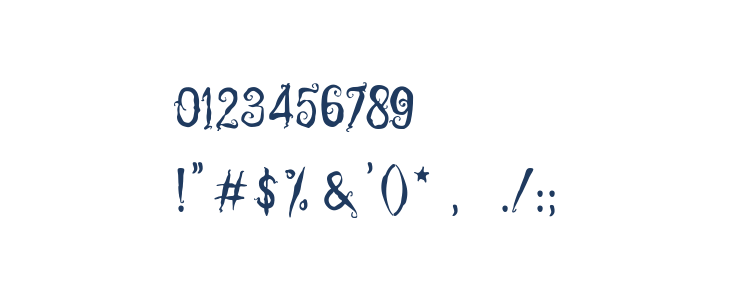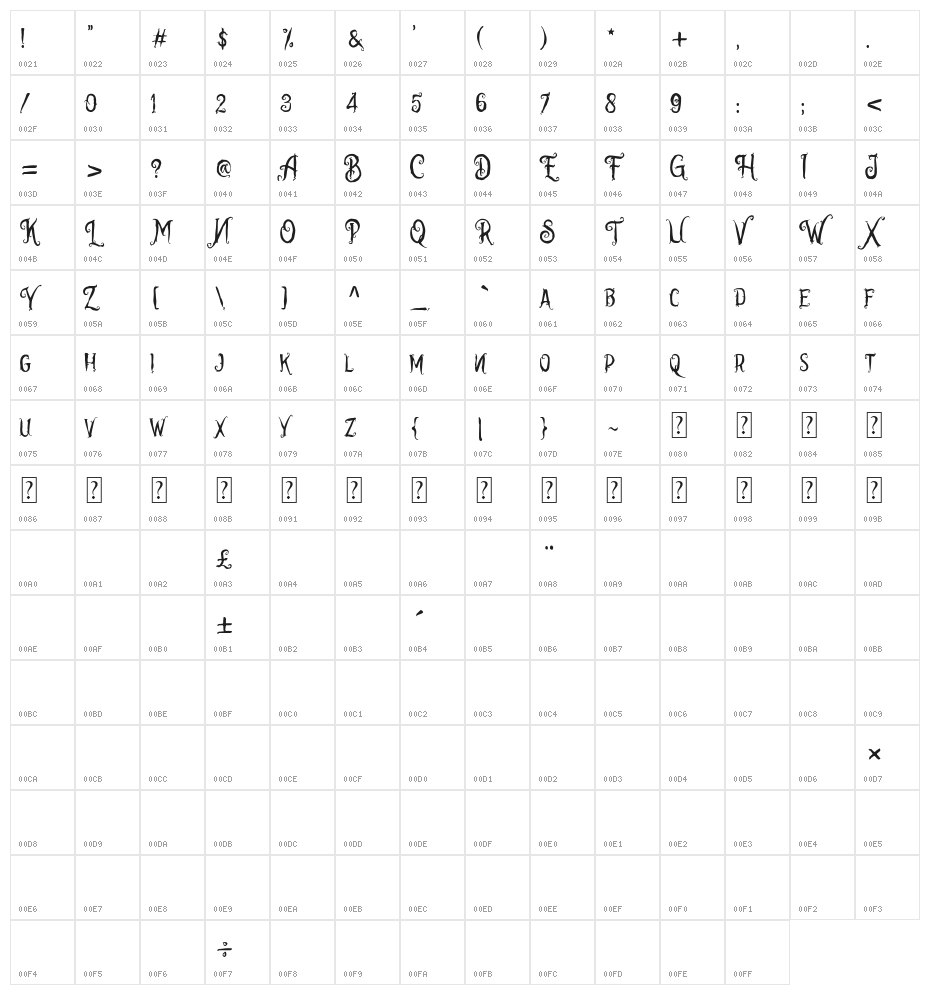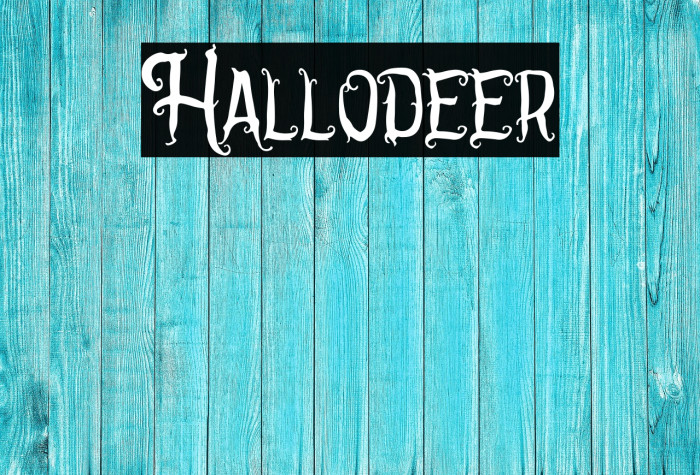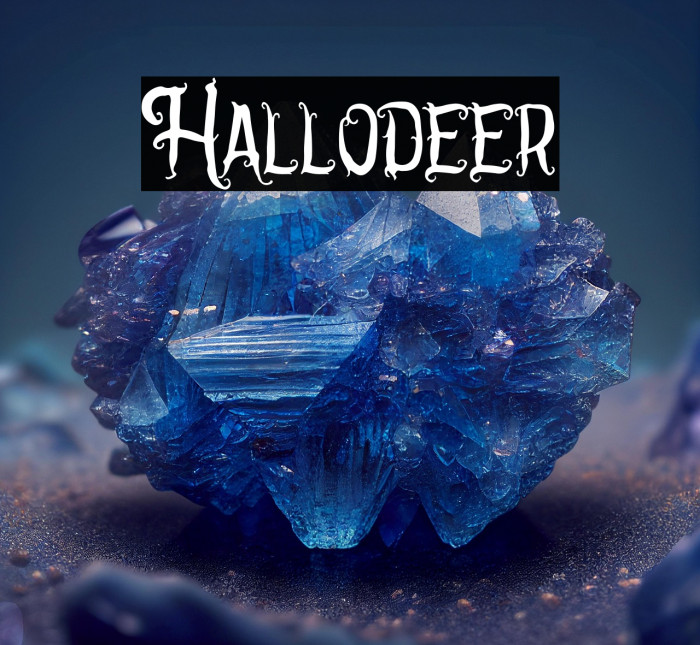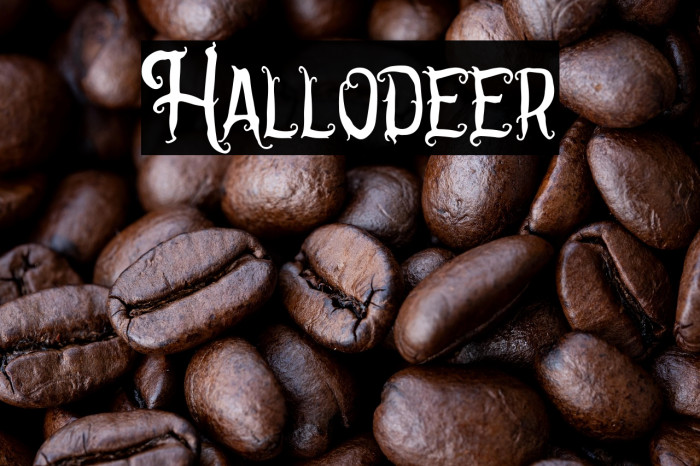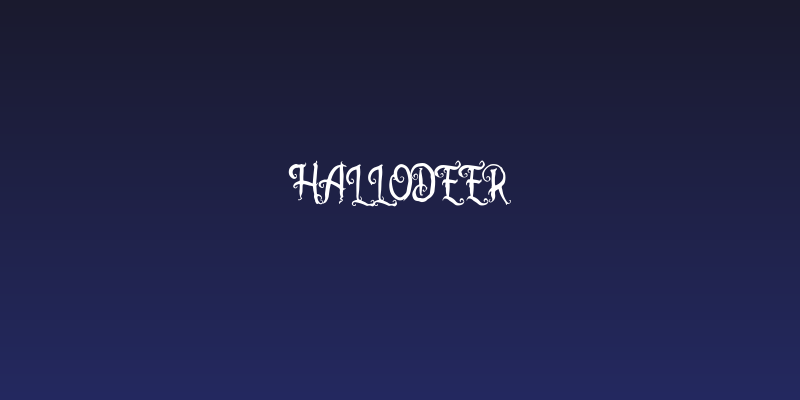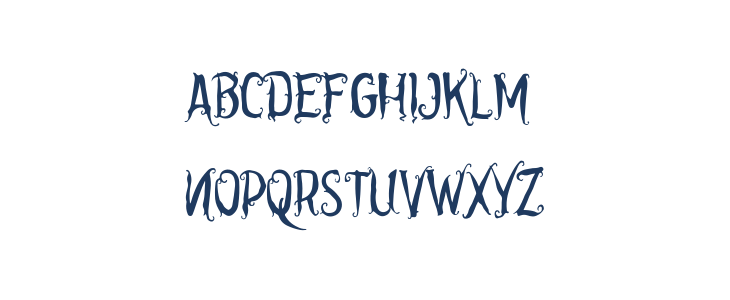
Hallodeer Font
Hallodeer Description
This font features a whimsical and decorative style, characterized by its ornate and playful letterforms. Each character is adorned with unique flourishes and curls, giving it a lively and artistic appearance. The uppercase letters are bold and prominent, while the lowercase letters maintain a consistent design with slightly less embellishment. The numbers and special characters follow the same decorative theme, ensuring a cohesive look across all glyphs. This font exudes a sense of creativity and fantasy, making it ideal for projects that require a touch of elegance and flair.
| Use Case | Headlines, Logos, Invitations |
| Proposed Projects | Ideal for invitations, greeting cards, posters, and branding that require a creative and artistic touch. |